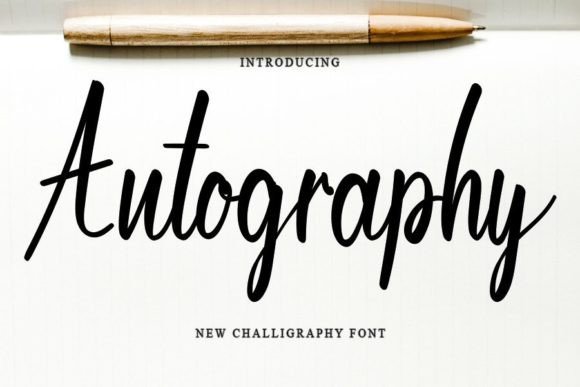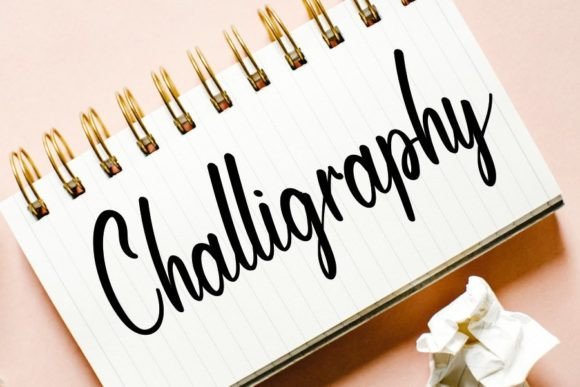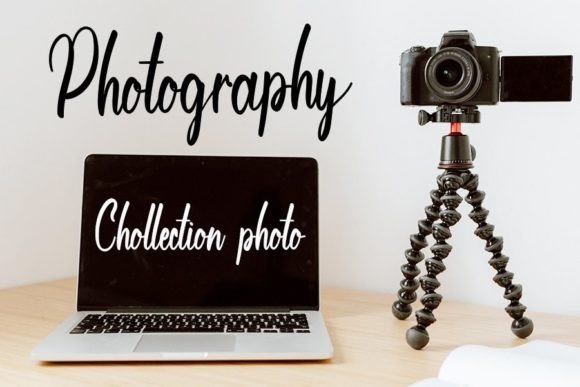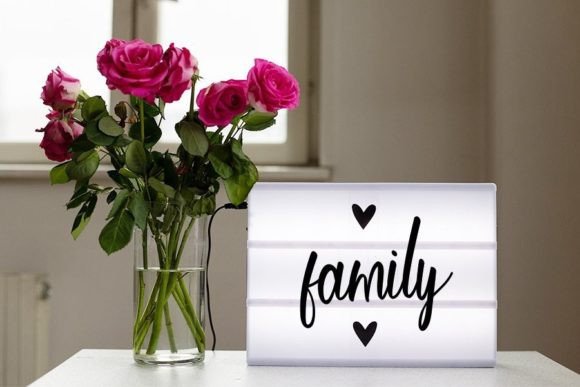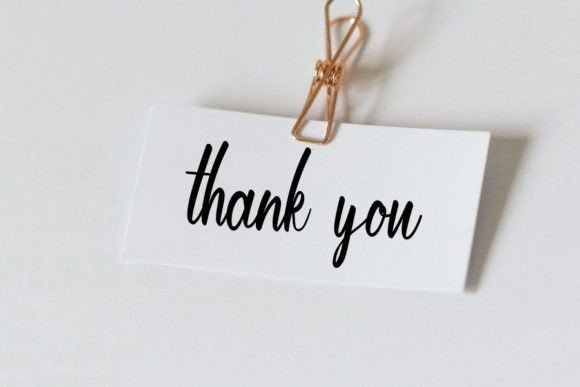
Autography Font
About Autography Font
“Autography” appears to be a neat and beautiful handwritten font with an elegant touch, offering a distinct and timeless style. Fonts with such qualities are versatile and can be applied to various creative projects.
The description suggests that “Autography” has a distinct and timeless style, making it suitable for different design contexts. Whether you’re working on logos, invitations, or other design elements, this font seems poised to contribute to creating spectacular and visually appealing designs.
Fonts with an elegant touch often add a sense of sophistication and refinement to projects. Consider incorporating “Autography” into your favorite projects, and let its distinct and timeless style enhance the overall aesthetic.